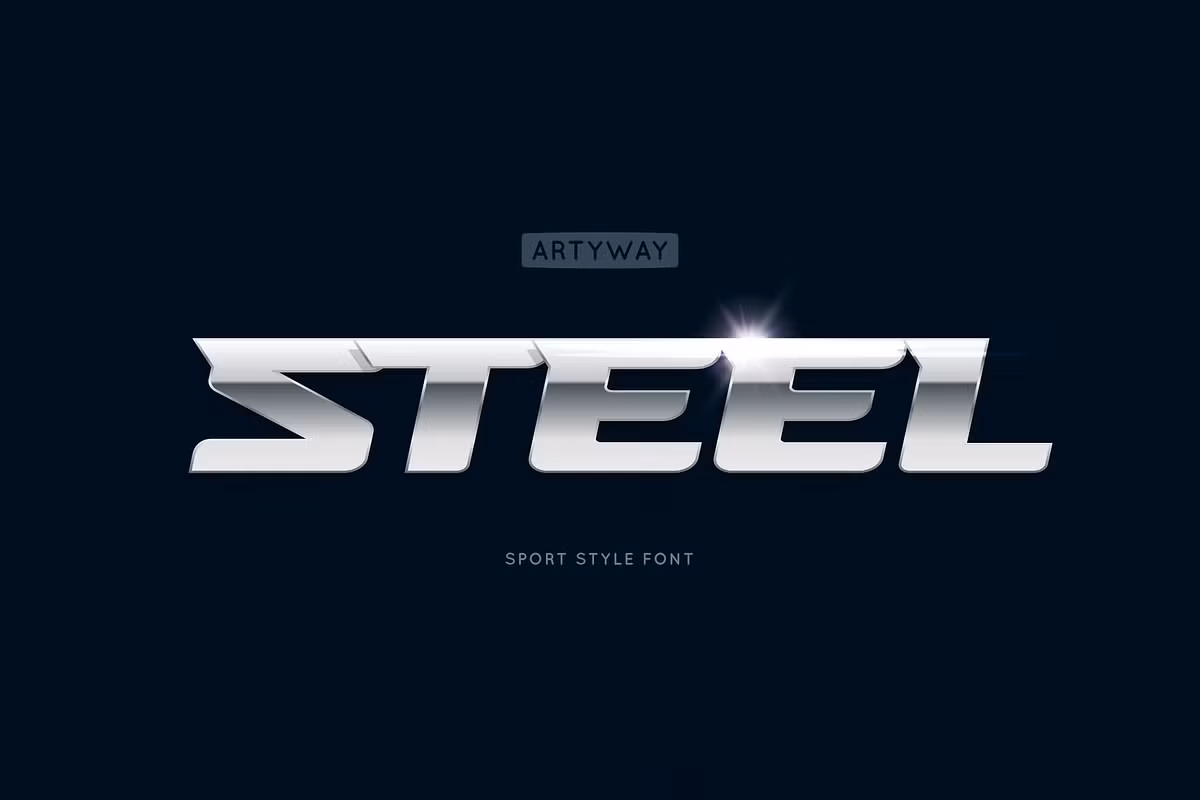
Headline Steel Font Free Download is a bold, industrial-style display typeface designed to make a strong impact. With its thick, sturdy strokes and sharp, geometric lines, Headline Steel is perfect for creating eye-catching headlines, posters, logos, and branding materials that need to stand out.
This font is ideal for high-energy, modern projects that call for strength and clarity, offering both readability and power. Whether you're designing for tech, sports, or any bold creative project, Headline Steel brings confidence and style to your typography.